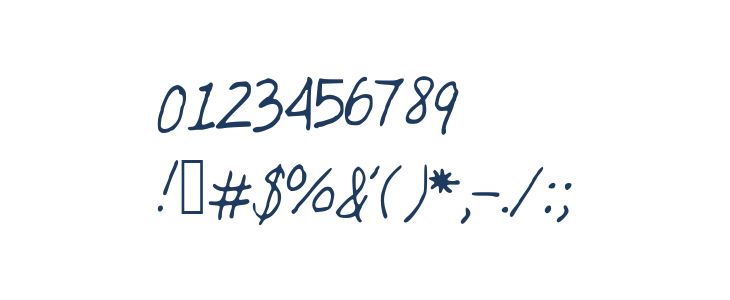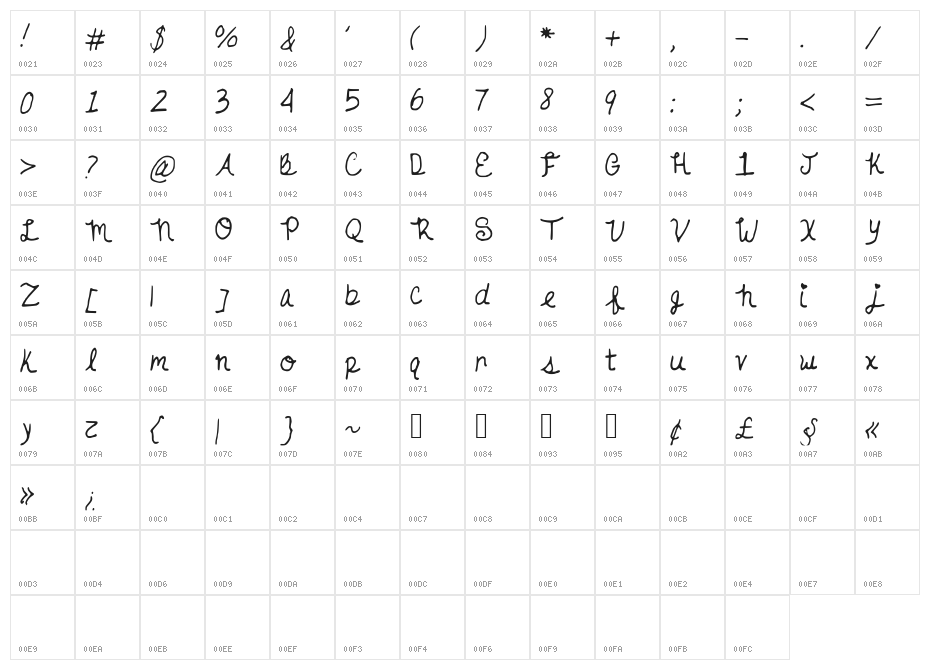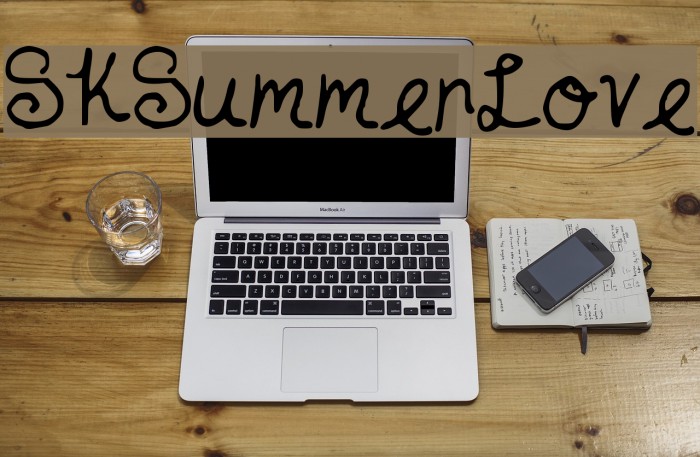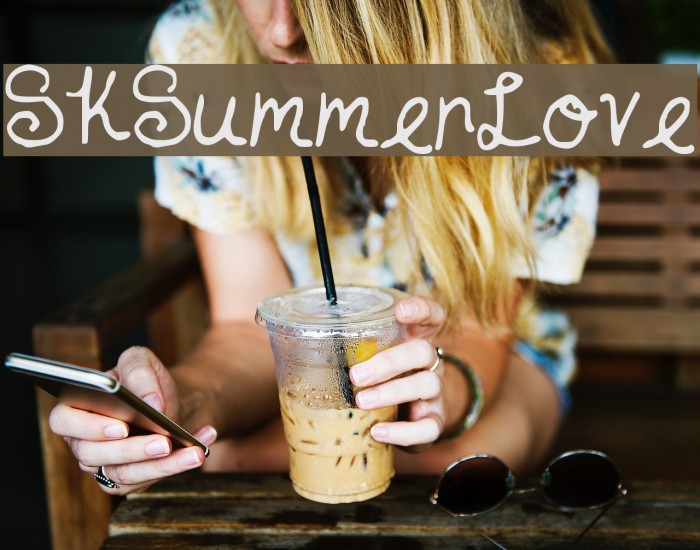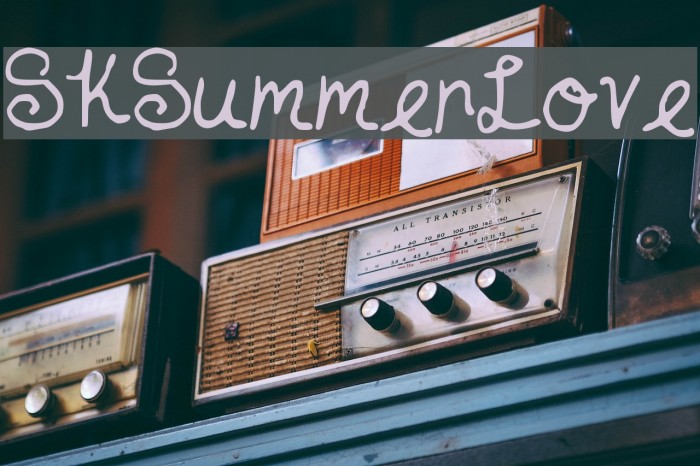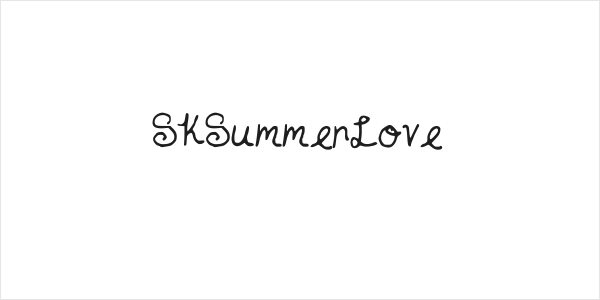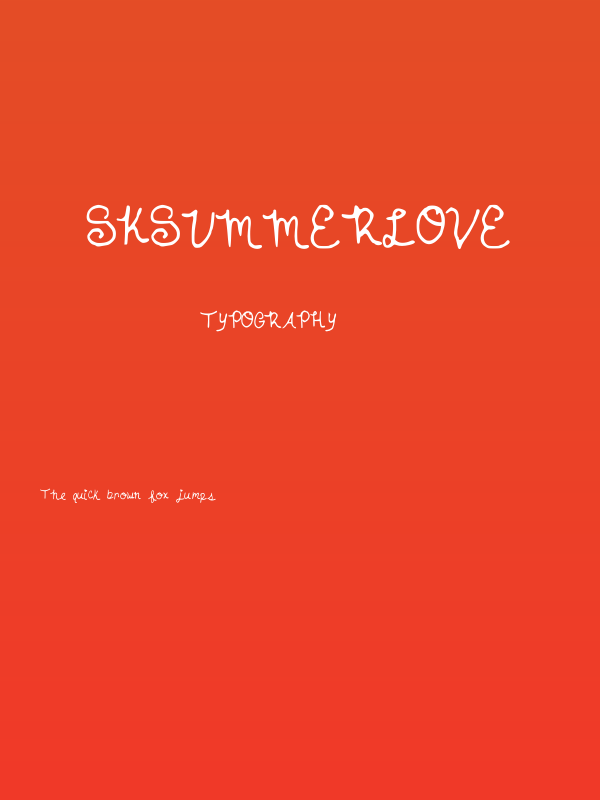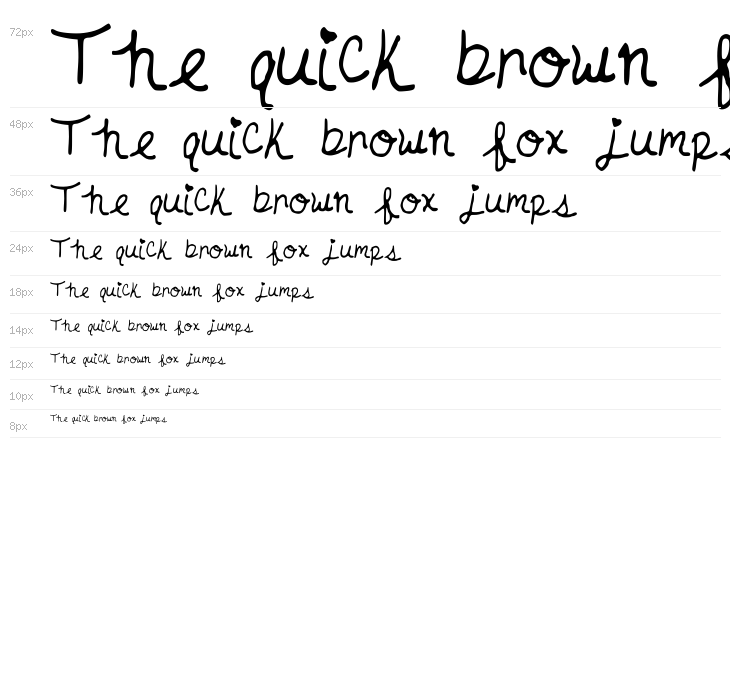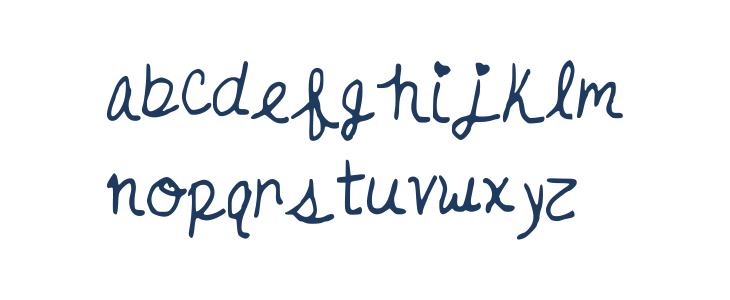
SKSummerLove Font
SKSummerLove Description
This font features a playful and whimsical handwritten style, characterized by its flowing and slightly irregular strokes. The letters have a casual, informal appearance, with a mix of rounded and angular elements that add to its charm. The uppercase letters are bold and prominent, while the lowercase letters maintain a consistent flow, creating a harmonious balance. The numerals and special characters follow the same playful aesthetic, making the font versatile for various creative projects. Its unique style is perfect for adding a personal touch to designs.